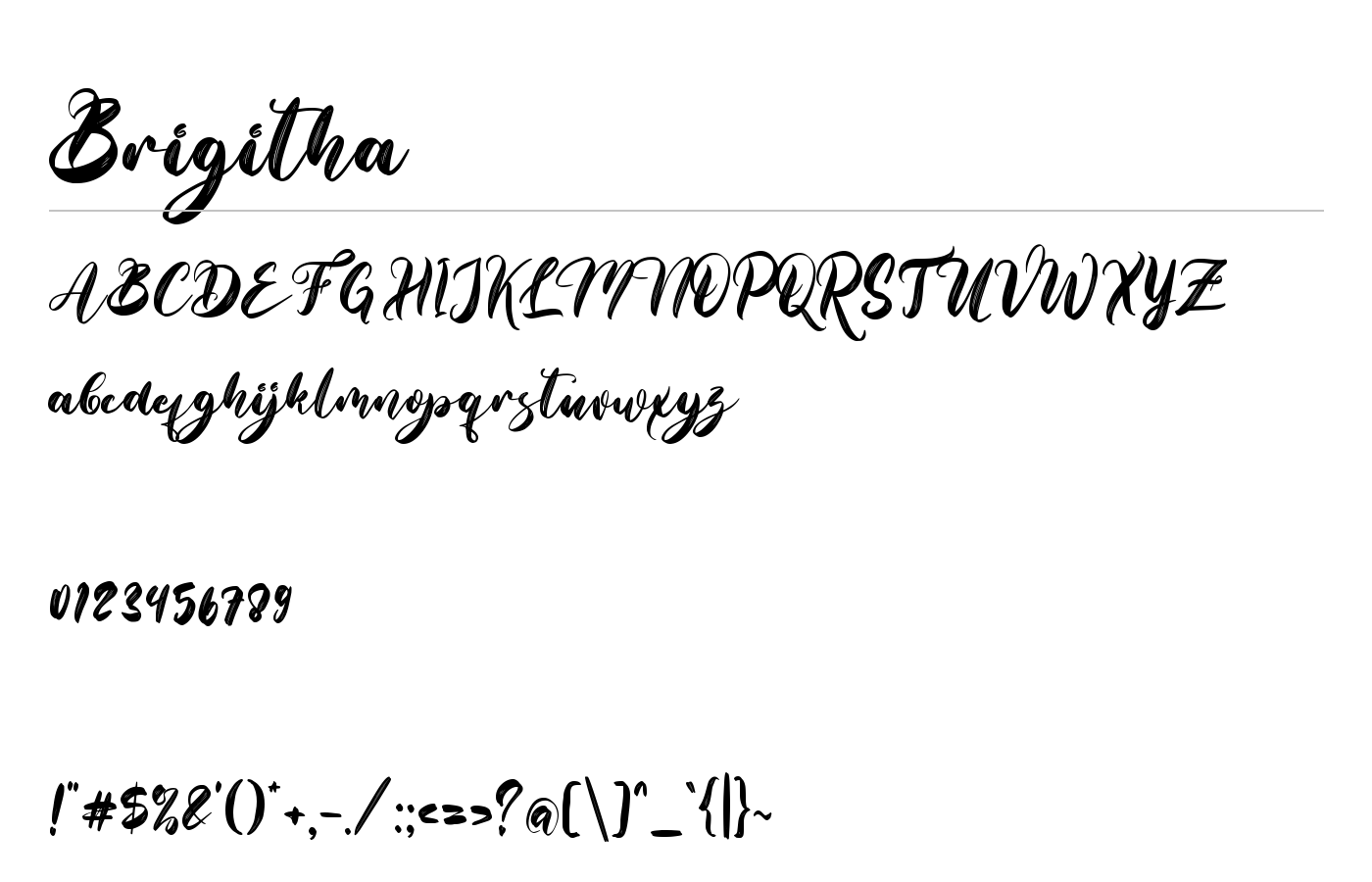
Brigitha is an elegant script font featuring fluid, brush-style strokes with a medium weight and high contrast between thick and thin lines. Its lively, hand-painted feel with swirly uppercase letters and smooth lowercase forms makes it perfect for designs that want to convey creativity, sophistication, and a personal touch. This font works beautifully for logos, invitations, and branding that seek a warm, artistic, and stylish impression.
Brigitha Font
About Brigitha Font
| Font family | Brigitha Font |
| Designer | Noftanti x Aldedesign 2020 (Alde Saputro) |